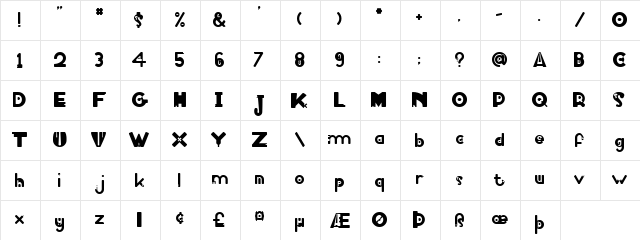
Underlapped Regular
Design Context for Underlapped Typeface
Underlapped offers clean, dependable letterforms without strong stylistic allegiance, making it a practical choice for designers who need flexibility.
Pro Tip: Use Underlapped in both headline and body roles to test its range before committing to a single application.